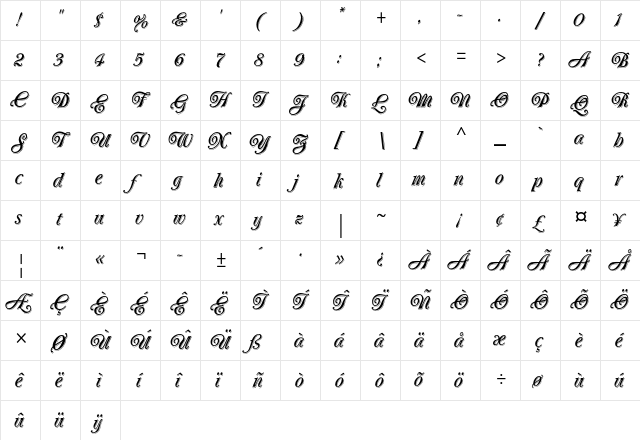
Oberon Std Regular
| Designer | Phill Grimshaw |
Design Context for Oberon Std Typeface
Oberon Std is a composed and adaptable typeface that performs quietly and consistently across a wide range of design contexts.